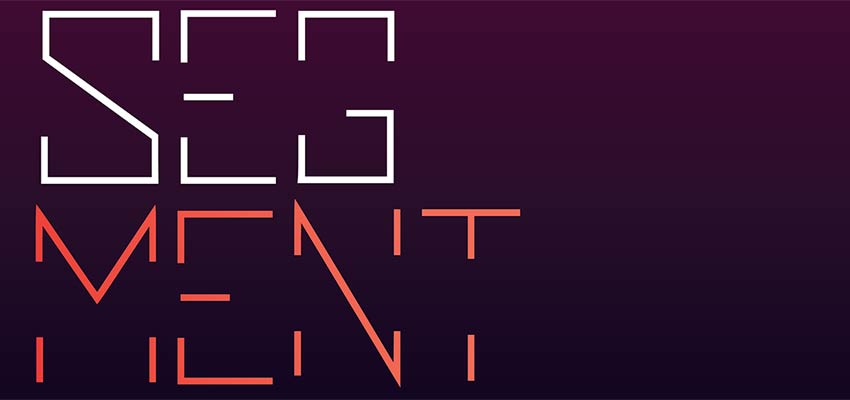
14 Free Display Fonts with a Creative Flair
Despite many exciting trends such as Three.js, split layouts, micro-interactions and gradients, typography always has a special place in our hearts and interfaces. It is not a tool that you can leave behind when building a website. Maybe a picture is worth a thousand words, but without a tiny chunk of text that quickly hints at what’s going on, you’re left with just a picture. Like it or not, typography is irreplaceable.
Designers deal with text almost every day. Whether it is used for a catchy slogan or a block headline, type should be carefully selected and finely-tuned. And when it is something that you are using on a daily basis, inevitably you should become more creative with its implementation.
As a result, we users get an invite to a masquerade ball where typefaces show us their fancy dresses. And these fancy dresses, A.K.A. display fonts with creative flair, can greatly benefit the project – creating a strong first impression and completing the overall aesthetic. If you seek a dress with an artistic touch for your next costume party, we have over a dozen free fonts that will help you stand out from the crowd.
Colortube
Colortube is for all the bright personalities out there. Colorful fonts were quite a fuss recently. So, if you want to be a part of the mainstream, you should try this one. It has eye-pleasing smooth letterforms that fit numerous projects. Use Photoshop or Illustrator to find your special mixture of tones that will make your lettering shine bright like a diamond.
Secure 3D Letterings
The Secure 3D lettering by MIIM was made specifically for brutalist designs, which are quite popular these days as well. It feels realistic and rustic. The metallic surface is just incredible. The vigilantly placed bolts amplify the overall look. It is an ideal font for adding brutality to your projects and becoming the prom queen of a freaky monster party.
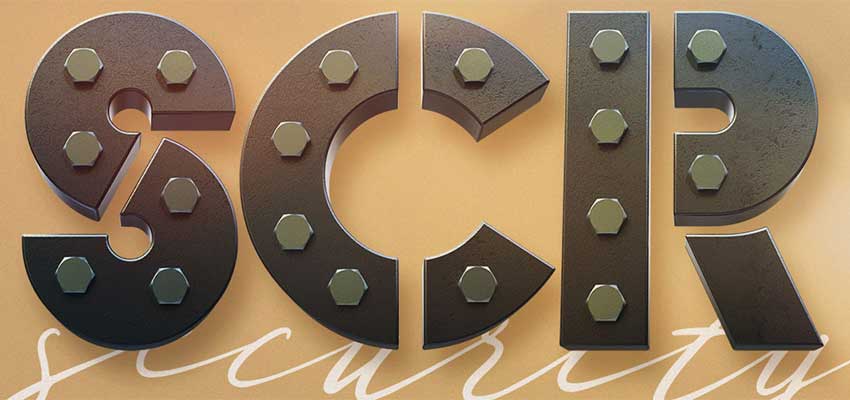
Marquee Light Bulbs 3D Numbers
If the metallic surface is too much for you, then try out a realistic typeface with light bulbs. It goes perfectly with retro projects, providing a design with a desirable vintage touch. The only drawback is that the free version is applicable only to numbers.
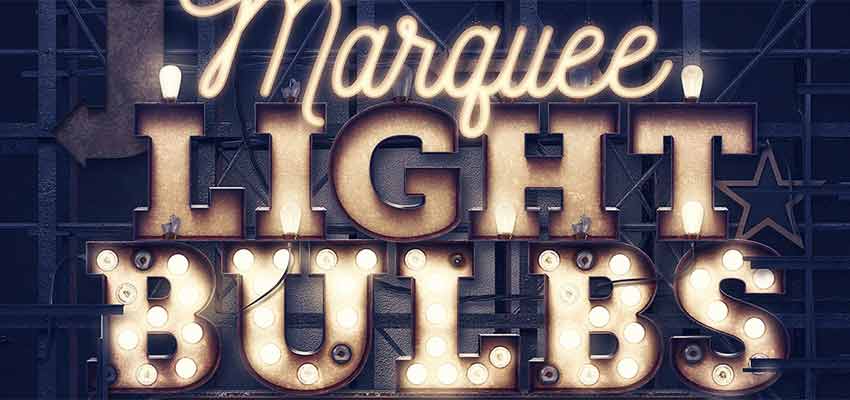
Gilbert Free Animated Typeface
At first sight, Gilbert looks almost the same as the Colortube font featured above. It is also based on the same approach of overlapping several colors into one character, but its key feature lies elsewhere: This is an animated font. Skillfully combining a brisk charisma and a dynamic behavior, it is quite ideal for your next project.
Font Balloon
Font Balloon is an eye-catching fusion of elegant and crafty brush style and geometric-like details, skillfully built into letterforms. Aga Magdziak has expertly picked the coloring – revealing the typeface in all its beauty. She also provides an accompanying set of patterns so that you can finish off the design.
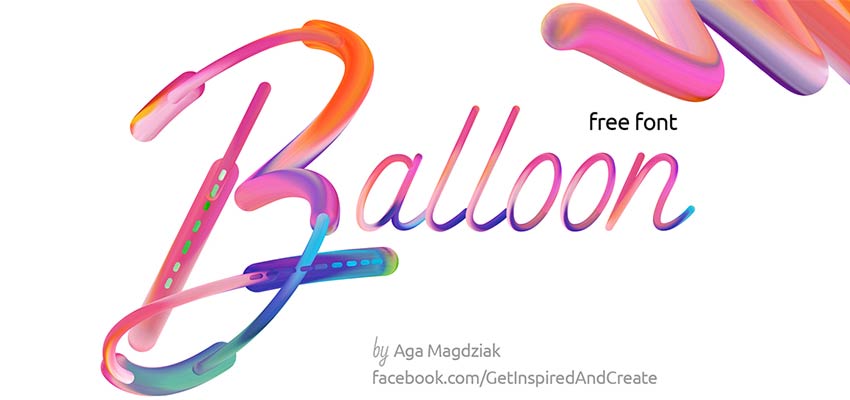
Airfool Free Display Typeface
To continue our series of fonts with a bright identity, we recommend trying Airfool typeface. Although its characters are monochromatic, thanks to its lovely balloon-inspired design, carefully arranged glares and playful letterforms, it does not concede to the other colorful fonts on this list.
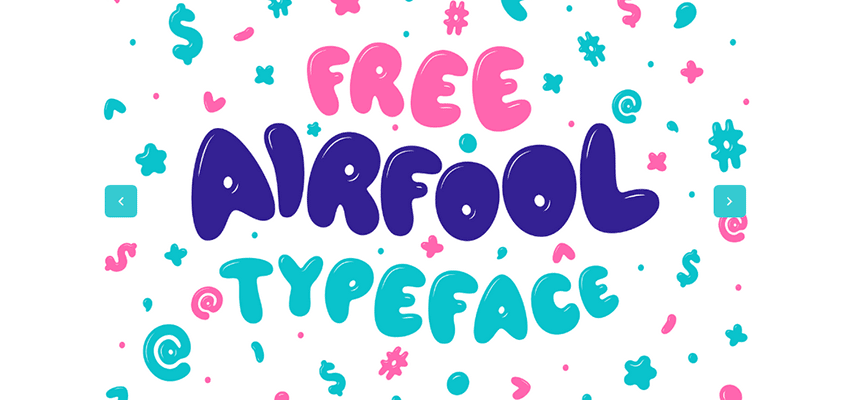
Fistura
When it comes to colorful fonts, the first thing that comes to mind is the sparkling 80’s: disco, MTV and aerobic stars with a passionate love for bright spandex pants. Fistura embraces some of the popular things from that era. Bright coloring, neon details, various geometric shapes combined in unison. They all make this font unique and extremely alluring.
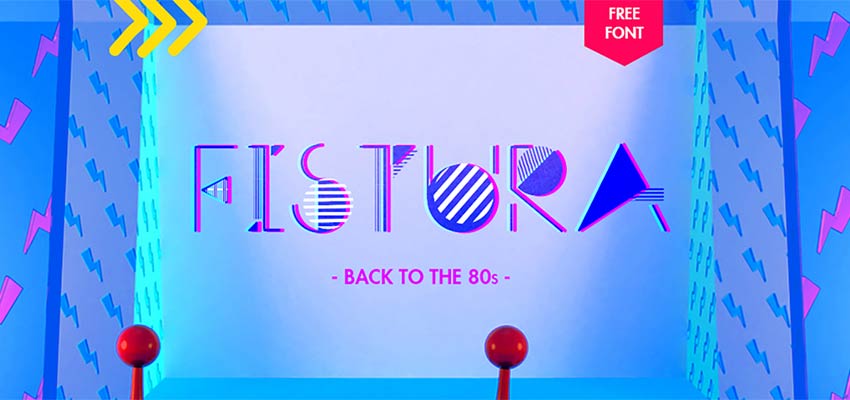
Neon Font
Neon Font is another masterpiece of Aga Magdziak, who has proven that colorful typefaces have an irresistible artistic flair. Although its aesthetics are also centered around brush-like touches, its cold coloring brings about a glossy effect rather than a paint-style one. It also features a bonus pack of patterns.
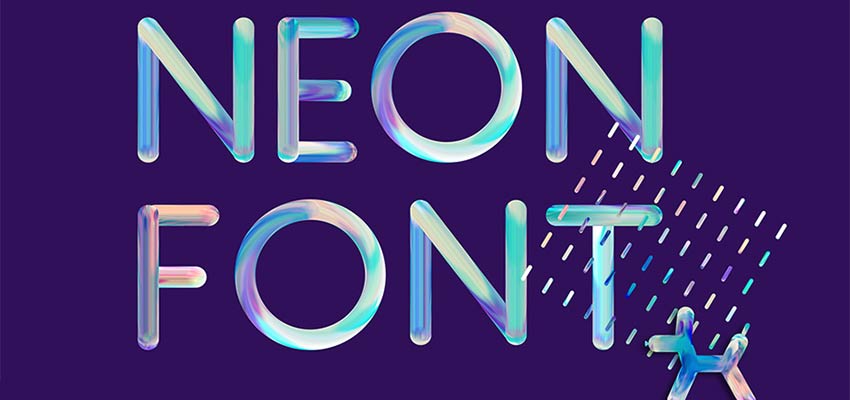
Aemstel Free Layered Font
Aemstel is a layered font that looks great both in plain and fake 3D versions. It is available in 5 styles, including some extravagant options with a line outside or inside. Experiment with layers to achieve a dramatic effect.
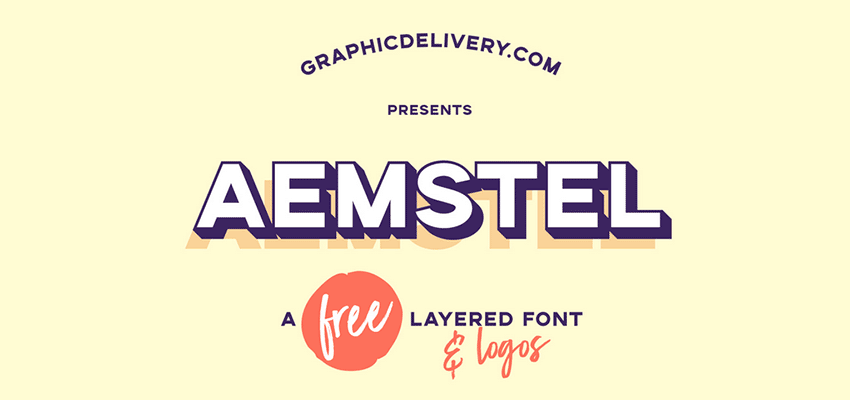
Invertor
Created with print media in mind, Invertor is a typeface to beautify titles and slogans in posters, flyers and magazine covers. Though that doesn’t mean the font won’t find its place in web design, as well. It is enriched with marvelous liquid-like details that give symbols a subtle appeal.
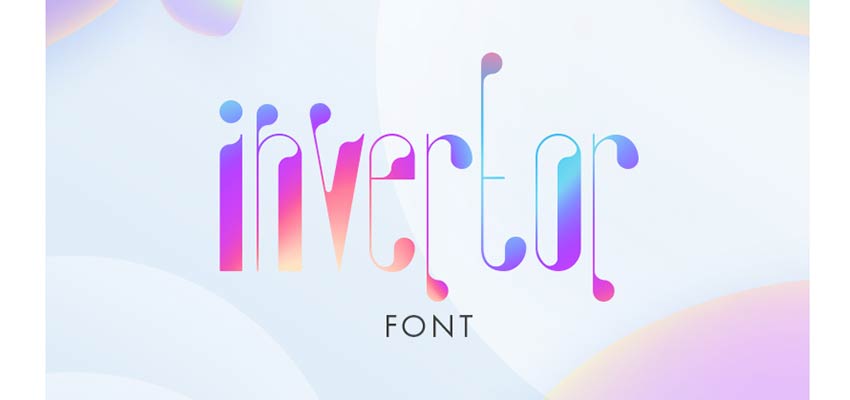
Pikolo Block Alt
As a representative of line art, Pikolo Block sticks to its roots, getting the most out of simple geometric shapes. However, it neither looks rustic nor brutal. On the contrary, thanks to polished curves and smooth angles, it oozes elegance and subtlety.
Lux Lineae
Lux Lineae is another outstanding take on the line art. Whereas the previous example looks a bit tight and dense, this font by Stephane P has a certain amount of fresh air between the elements that form each character. It also feels elegant, yet with a note of sophistication.